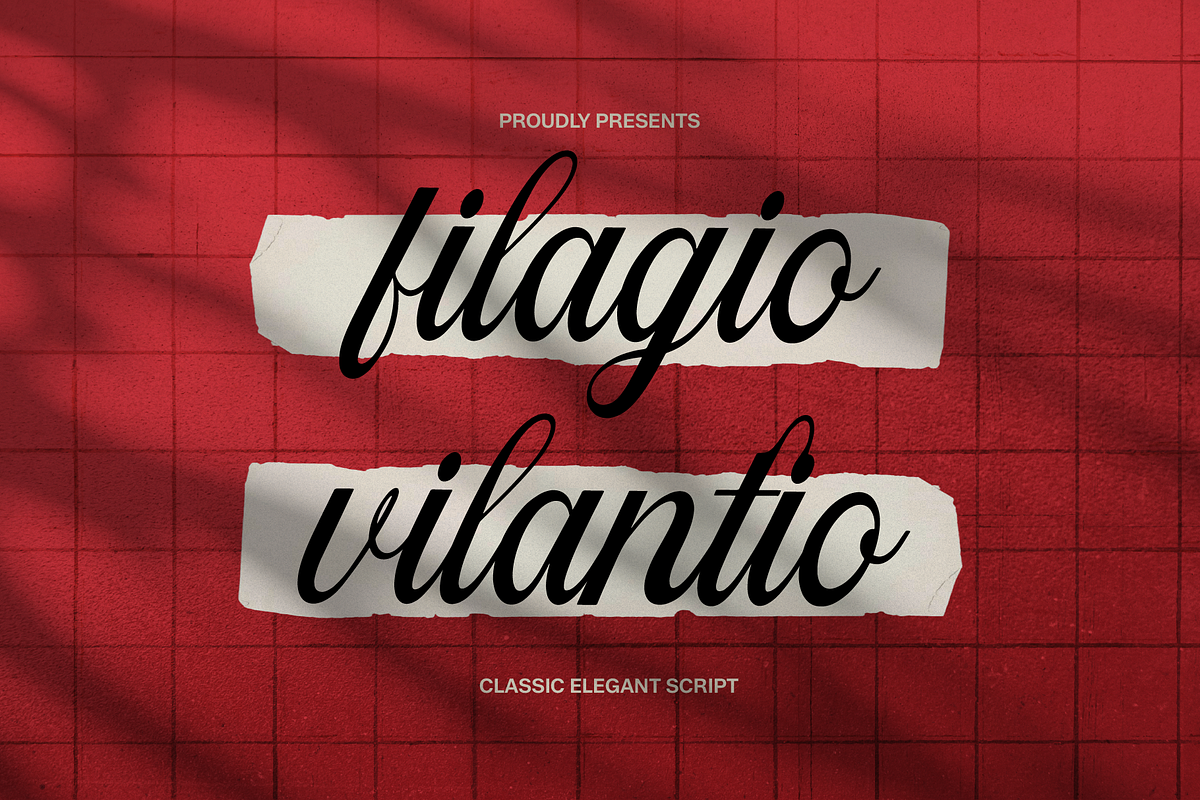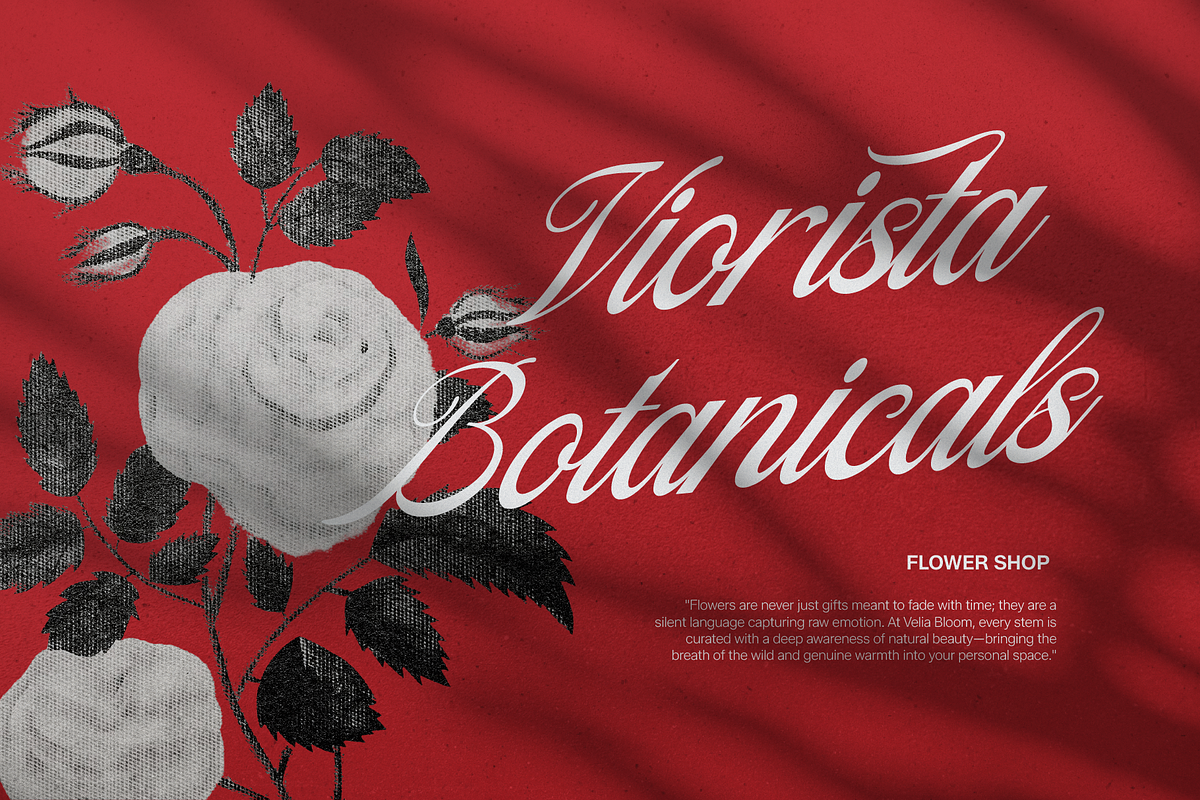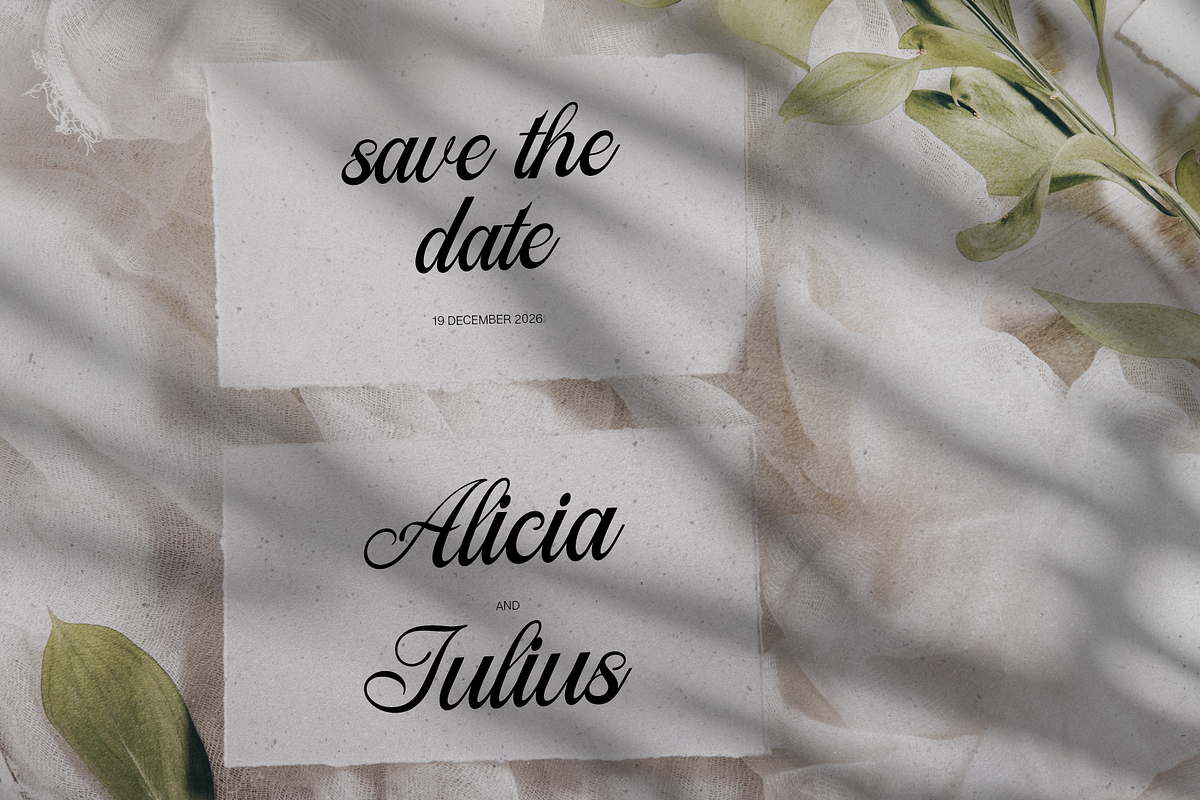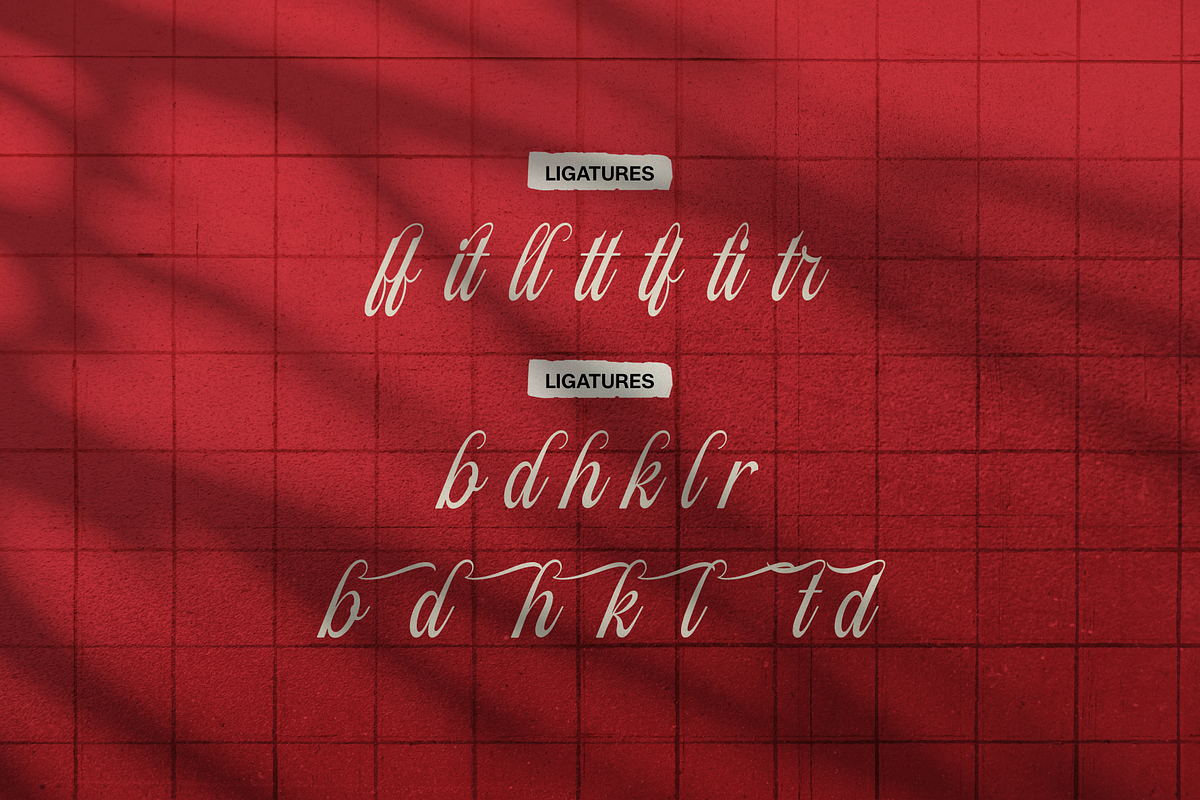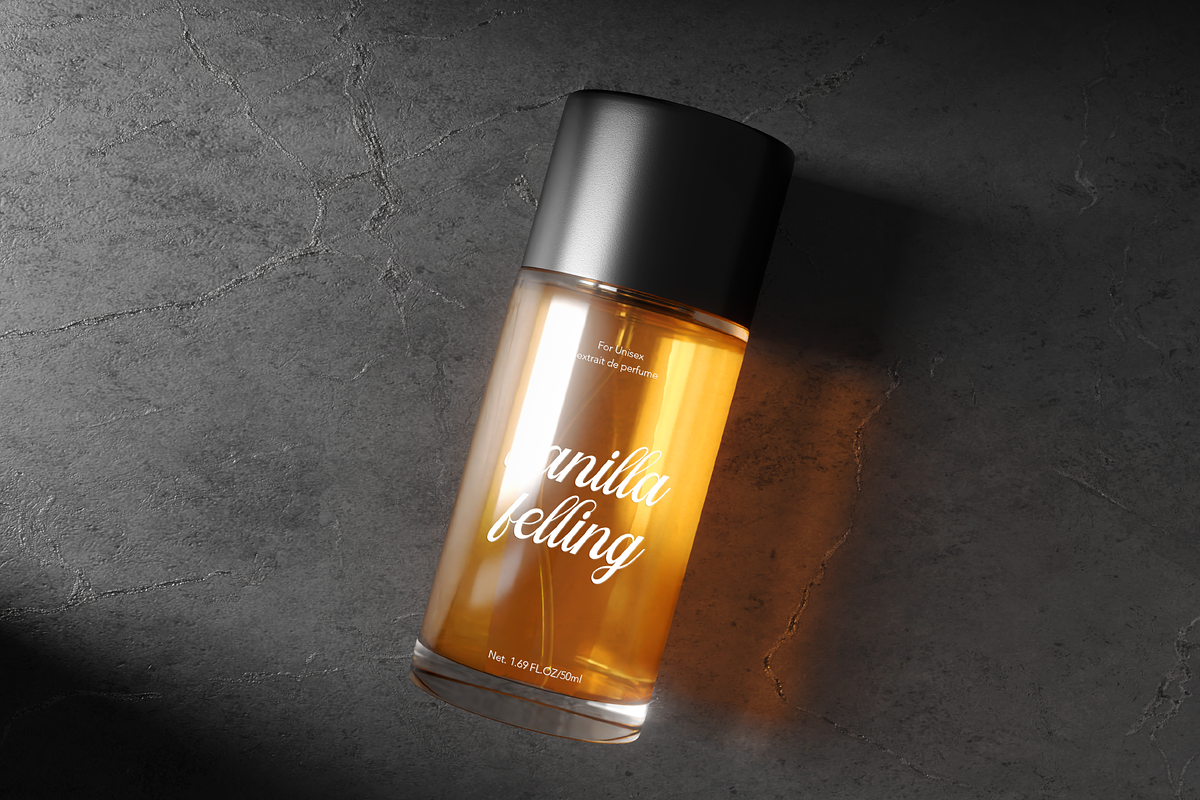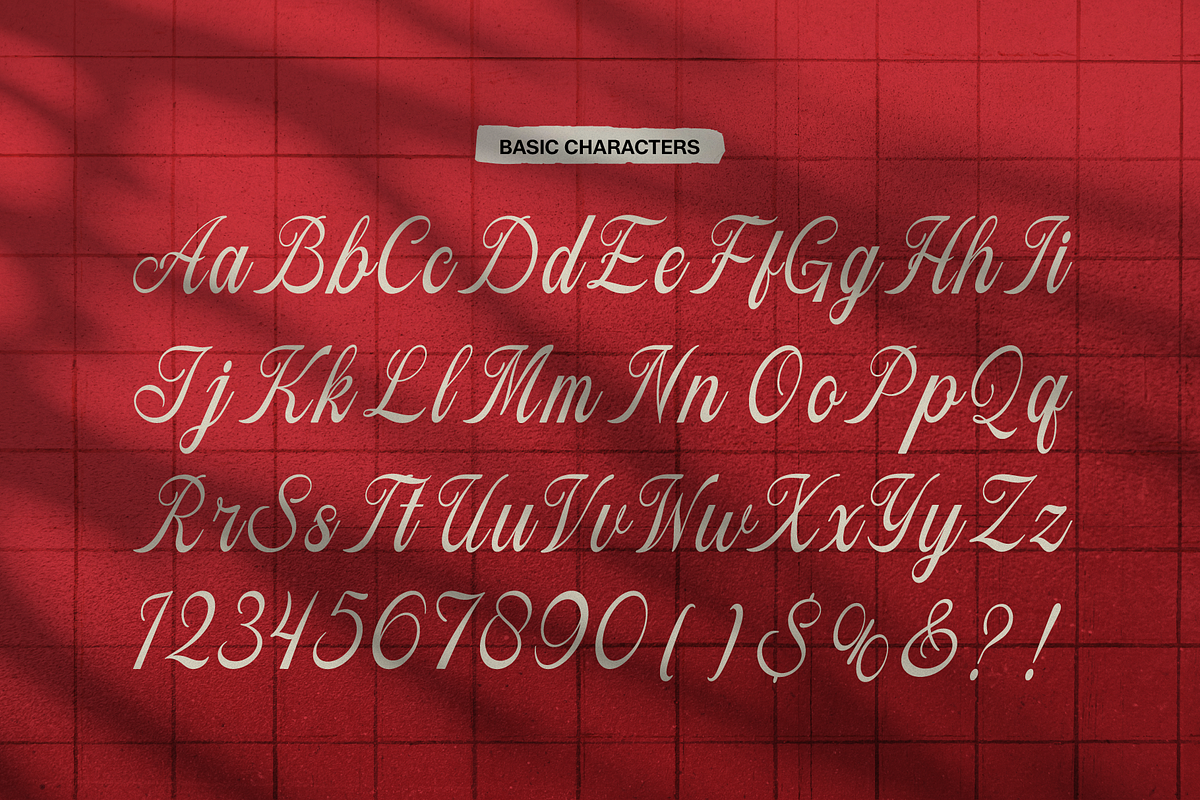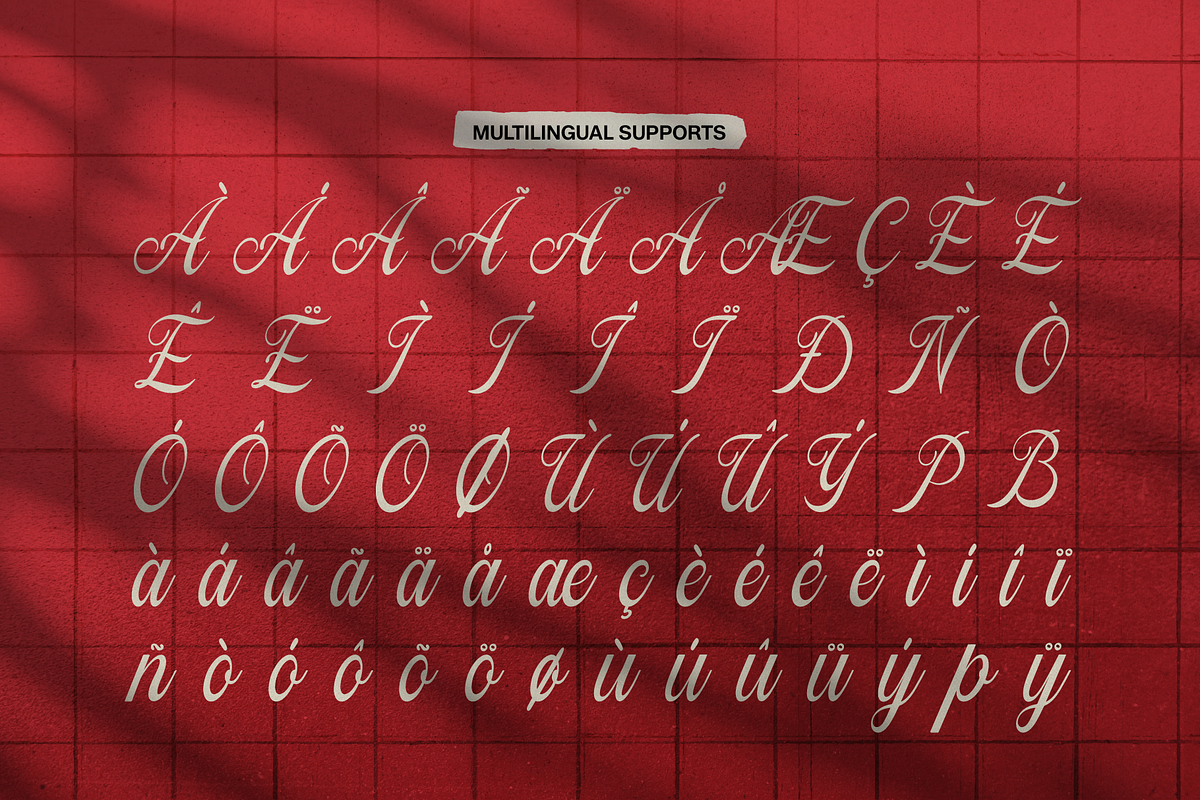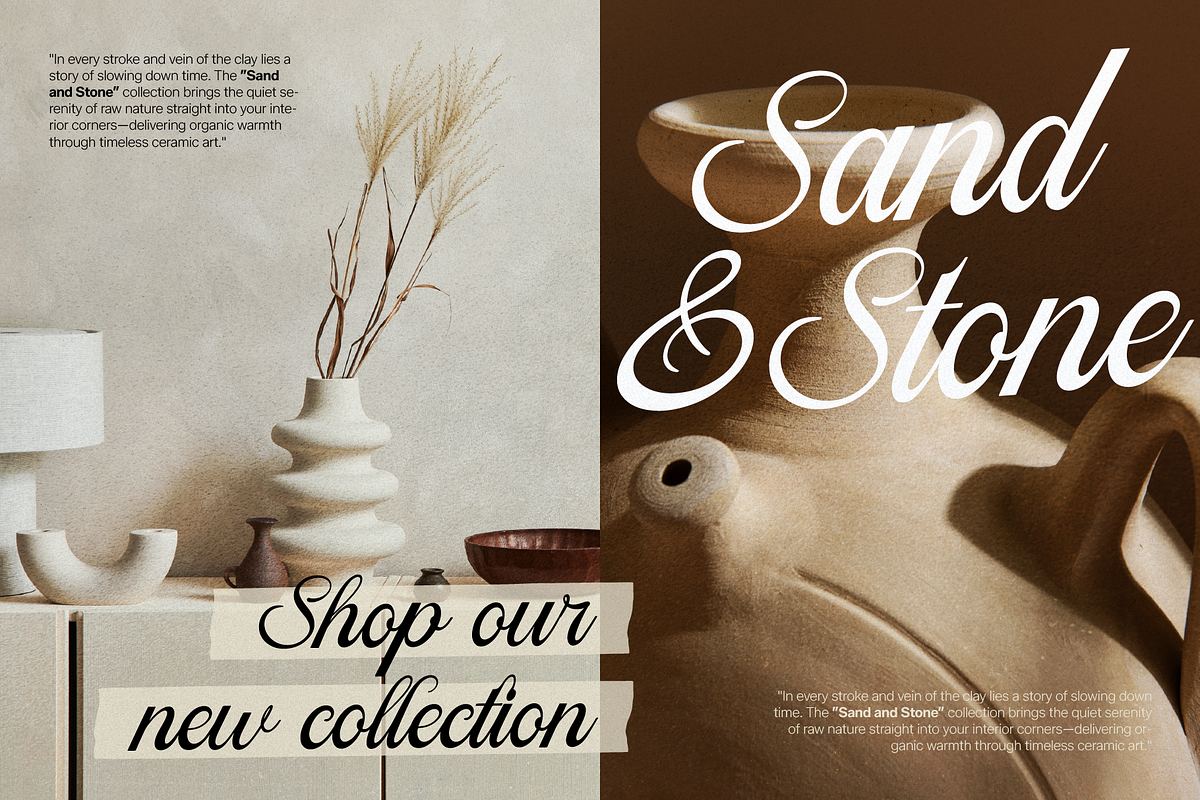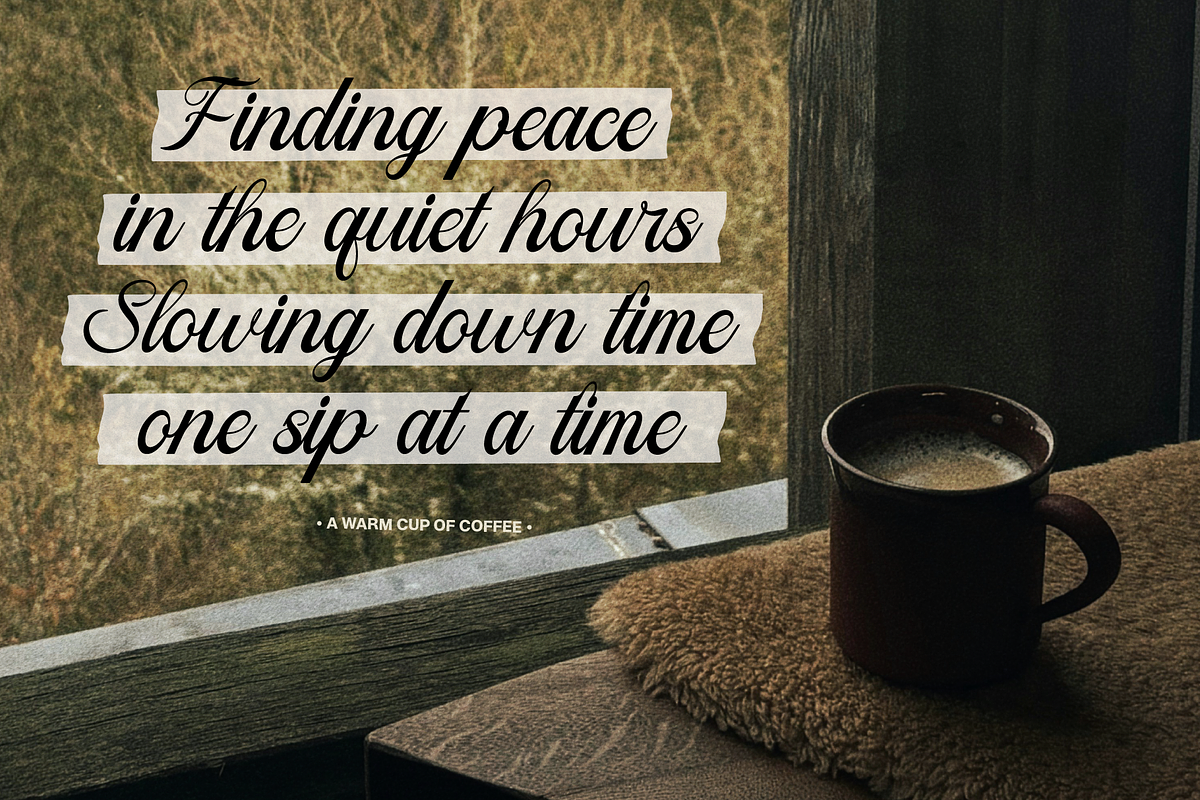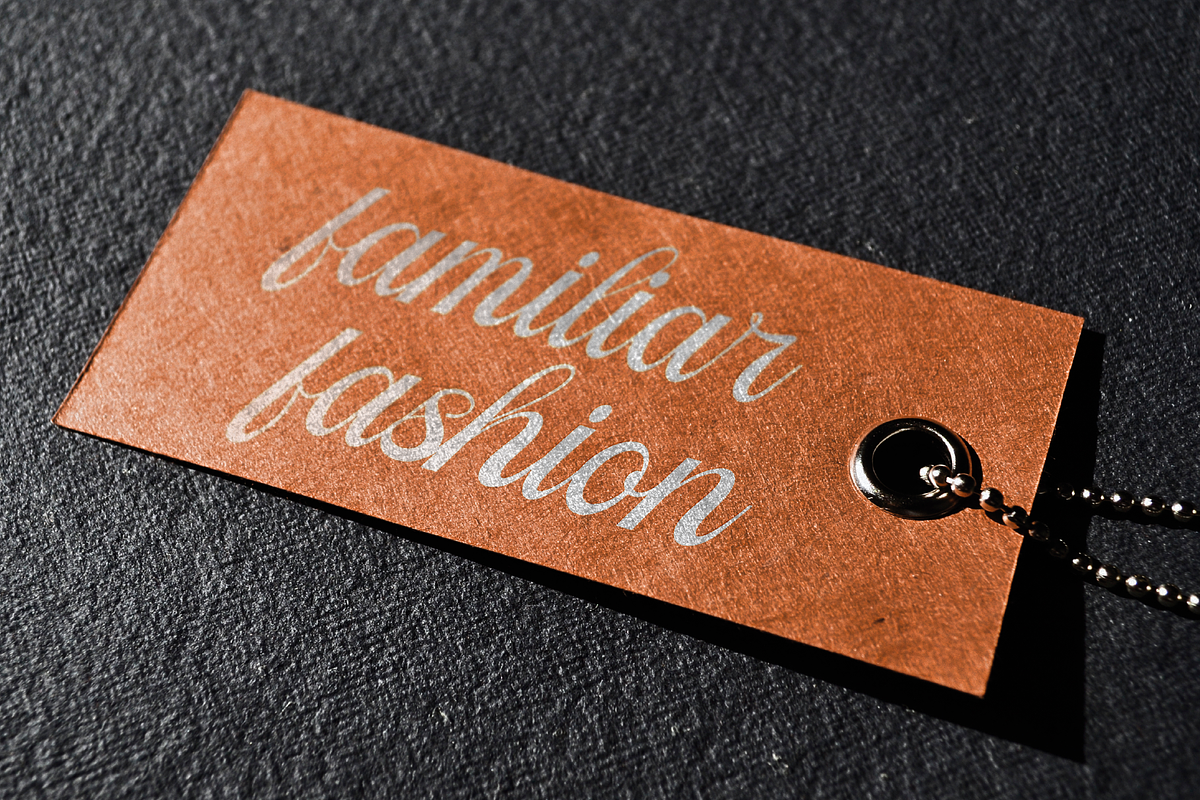
Filagio Vilantio Classic Script
Filagio Vilantio | Classic Elegant Script, from Gracetypestudio, suitable for any projects such as: logos, branding projects, homeware designs, product packaging, mugs, quotes, posters, shopping bags, t-shirts, book covers, name card, invitation cards, greeting cards, label, photography, watermark, special events, and all your other lovely projects that need a Script Font taste.
Alternate and Ligature
Fonts include multilingual support